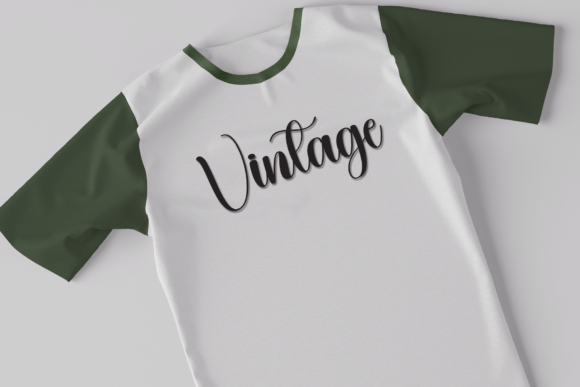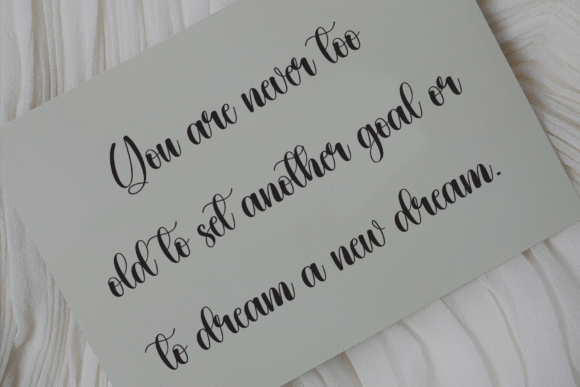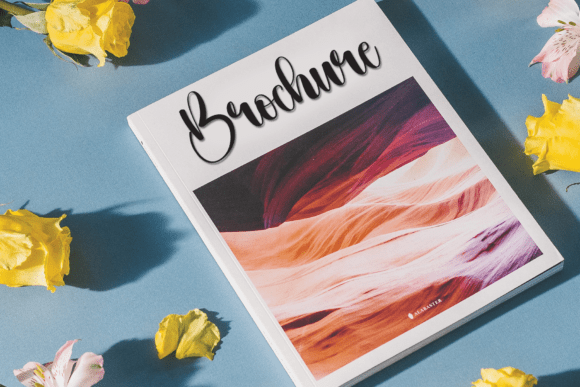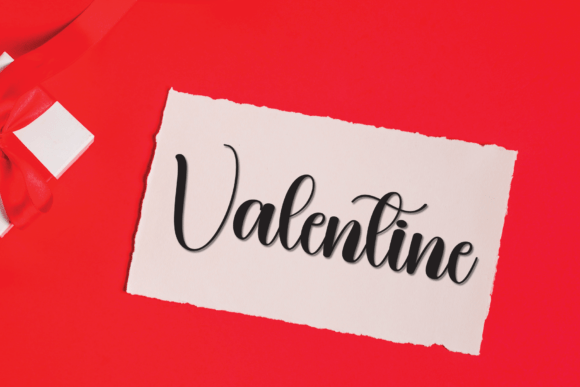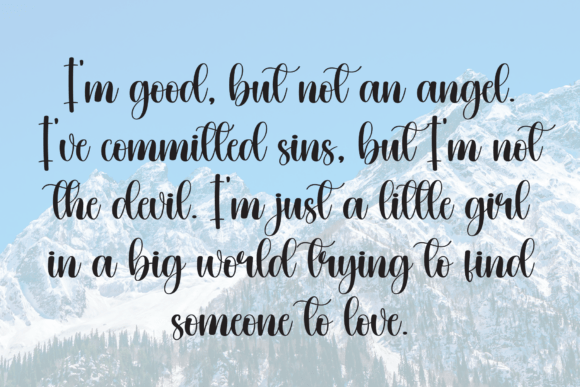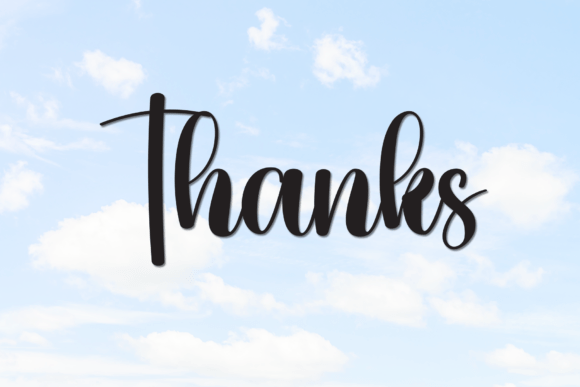
Discover the Elegance of Clouds Font: A Modern Handwritten Script Font
Are you looking for a font that exudes modern elegance and effortless charm? Look no further than Clouds Font, a gorgeously flowing, contemporary handwritten script font that is sure to elevate your designs to new heights. With its bold, smooth loops and beautifully dramatic swashes, Clouds Font is the perfect choice for designers and crafters who want to add a touch of sophistication and luxury to their work.
Signature Style and Features
Clouds Font boasts a signature style that is both modern and elegant. Its bold, smooth loops and beautifully dramatic swashes give it a dynamic and eye-catching appearance, while its consistent baseline provides stability to its letterforms. The thick-to-thin stroke variation adds a sophisticated, luxury feel, making it an excellent choice for branding that requires a personal and high-end touch.
Clouds Font is a versatile font that can be used for a wide range of design projects. Its elegant and sophisticated appearance makes it perfect for:
- Wedding invitations: Add a touch of romance and elegance to your wedding invitations with Clouds Font.
- Premium product packaging: Elevate your product packaging with a font that exudes luxury and sophistication.
- Feminine logos: Create a beautiful and feminine logo that showcases your brand’s personality.
- Stylish social media graphics: Add a touch of elegance to your social media graphics and stand out from the crowd.
- Personalized stationery: Create beautiful and unique stationery that reflects your personal style.
OpenType Features for Customization
Clouds Font likely includes OpenType features such as alternates and ligatures, which allow you to customize the connection and flow of letters. This means that you can create unique and beautiful text that has an authentic, professional calligraphic look. With Clouds Font, you can:
- Swap out letters with alternate characters to create a unique look.
- Use ligatures to connect letters and create a flowing script.
Why Choose Clouds Font?
So why choose Clouds Font for your design projects? Here are just a few reasons:
- Elegant and sophisticated appearance: Clouds Font exudes modern elegance and effortless charm.
- Versatile: Use Clouds Font for a wide range of design projects, from wedding invitations to product packaging.
- Customizable: With OpenType features and PUA-encoding, you can easily customize the font to suit your needs.
- High-end feel: Clouds Font has a sophisticated, luxury feel that’s perfect for branding that requires a personal and high-end touch.
In conclusion, Clouds Font is a beautiful and elegant handwritten script font that is perfect for designers and crafters who want to add a touch of sophistication and luxury to their work. With its bold, smooth loops and beautifully dramatic swashes, Clouds Font is sure to elevate your designs to new heights. Whether you’re creating wedding invitations, product packaging, or social media graphics, Clouds Font is a versatile and customizable font that is sure to meet your needs.